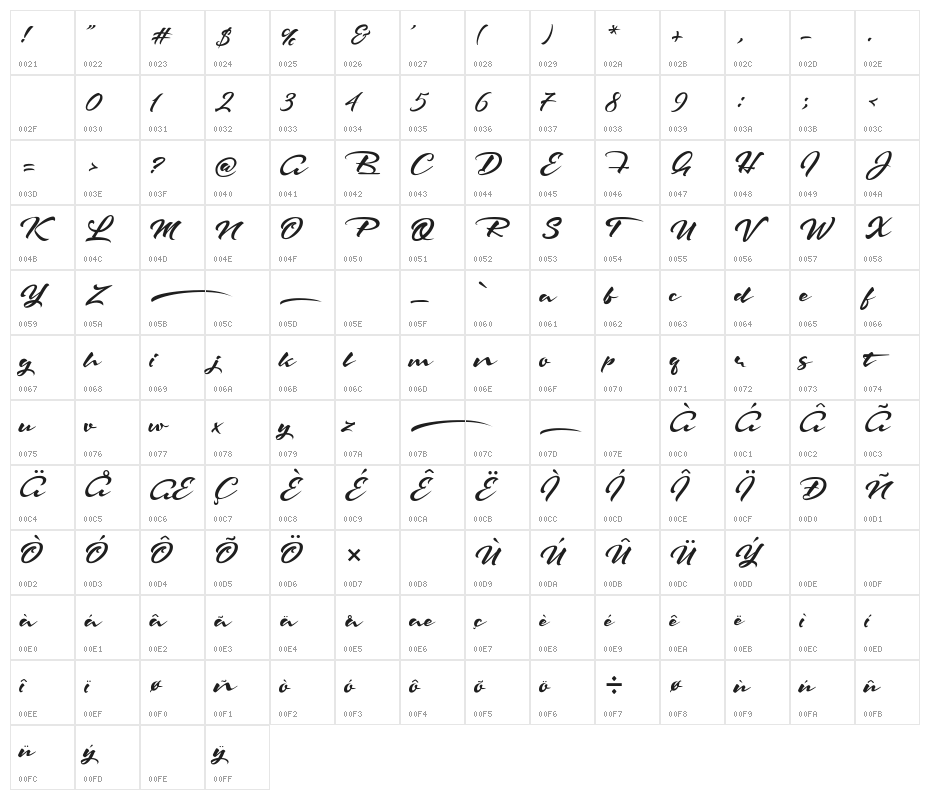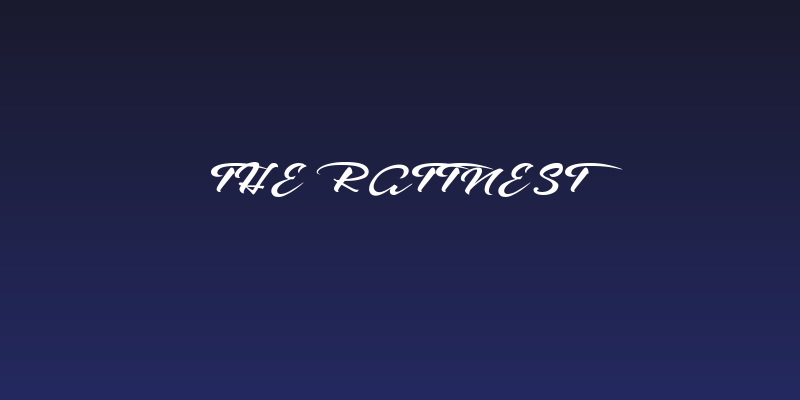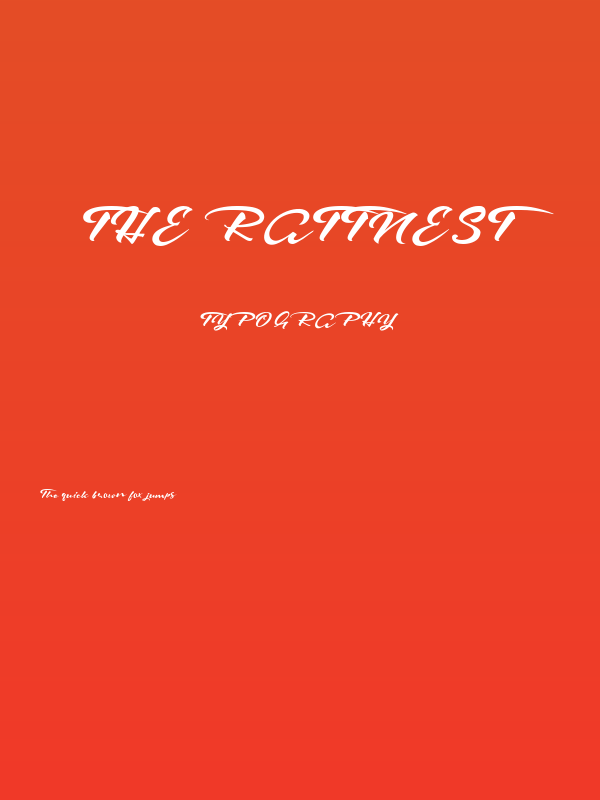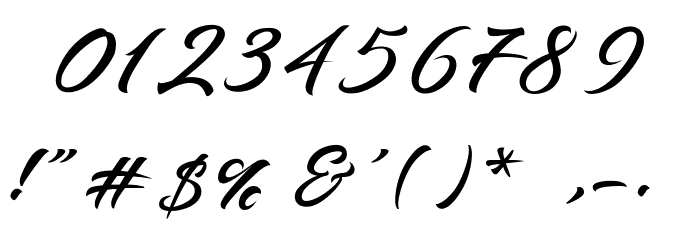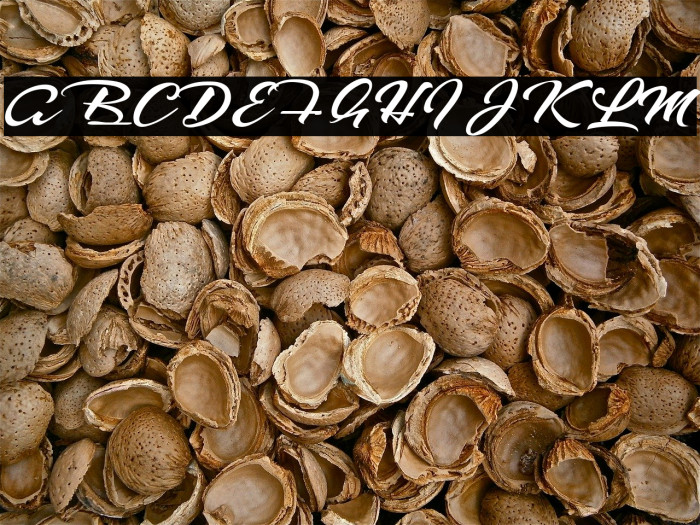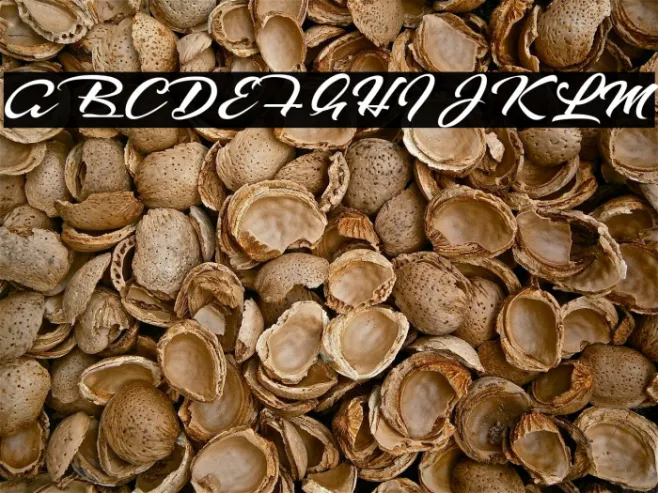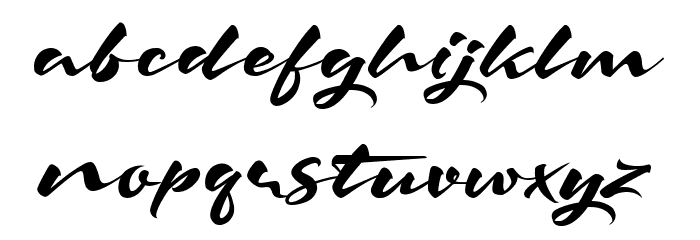
The Rattnest Font
The Rattnest Description
This font exudes a dynamic and elegant script style, characterized by its fluid and cursive letterforms. The uppercase letters are bold and sweeping, with a graceful flair that adds a sense of movement and sophistication. The lowercase letters maintain a consistent flow, with smooth connections between characters, enhancing readability while preserving an artistic touch. Numbers and special characters are crafted with the same attention to detail, ensuring a cohesive look across all elements. The overall appearance is both stylish and versatile, making it suitable for a variety of design applications.